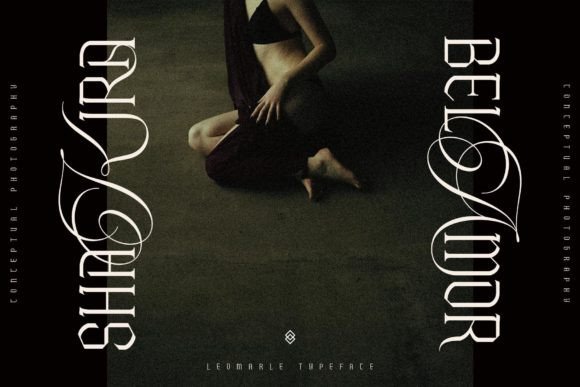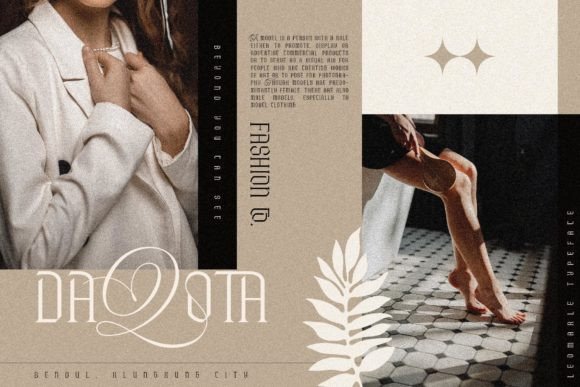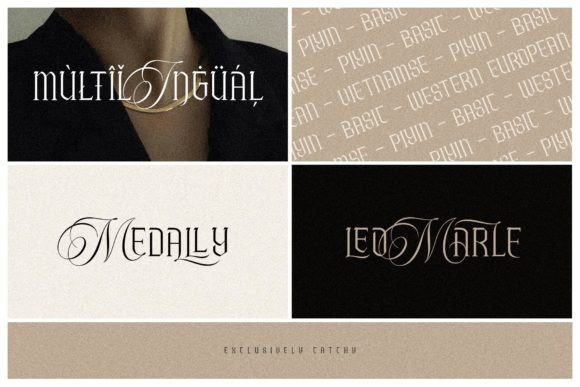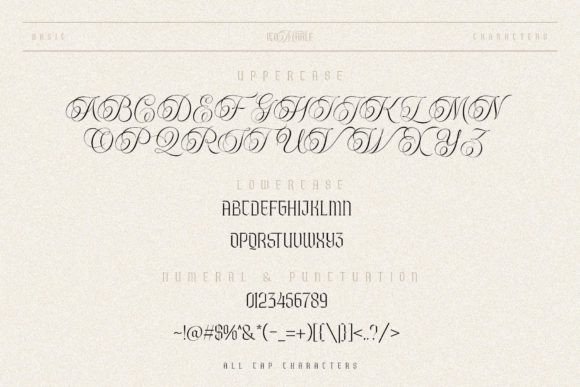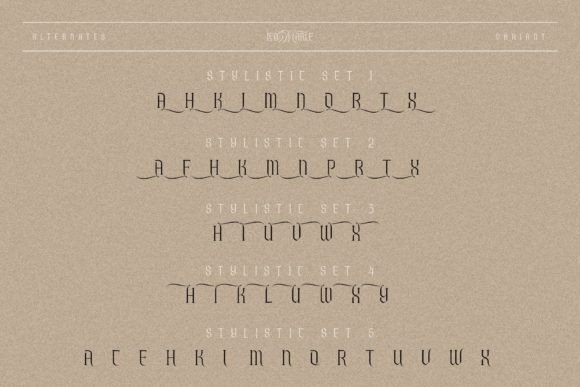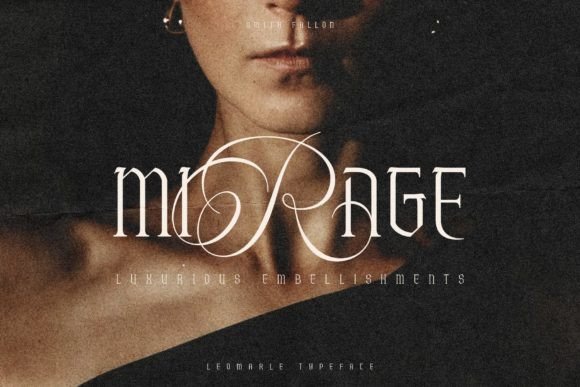
Introduction to Leomarle Font
Have you ever been scrolling through your Instagram feed, and suddenly, a beautifully designed post catches your eye? The text stands out, and you can’t help but wonder what font was used to create that stunning effect. For designers, this is the ultimate creative moment – the moment when a well-chosen font can elevate a project from ordinary to extraordinary. One such font that has been making waves in the design community is the Leomarle Font, a unique and elegant combination of scripts that is sure to take your designs to the next level.
With its classic blackletter style and modern twist, the Leomarle Font is perfect for a wide range of creative projects, from magazine cover designs to Instagram ads. And the best part? It’s incredibly easy to use, thanks to its support for Unicode (PUA) glyphs, making it a valuable resource for both designers and non-designers alike.
Key Features of Leomarle Font
- Unique, hand-drawn style with a transparent background, offering flexibility in design applications.
- Supports multiple languages, making it a versatile design resource for international projects.
- Available in a range of sizes, from 12 to 72 points, to accommodate various design needs.
- Features a high-resolution design (300 DPI) for crisp and clear typography in print and digital applications.
Honest Review: Leomarle Font
One of the standout features of the Leomarle Font is its high-quality design. The font is sleek, modern, and perfect for any project that requires a touch of sophistication. The transparent background option also makes it incredibly versatile, allowing me to use it in a variety of different contexts.
- Transparent background option adds to its versatility
- Some users may find the font to be a bit too modern for certain projects
- The font’s thin lines can sometimes make it difficult to read at smaller sizes
Overall, I’m really impressed with the Leomarle Font. It’s a fantastic design resource that’s sure to elevate any creative project. With its high-quality design and transparent background option, it’s a must-have for any designer looking to take their work to the next level.
Tips for Getting the Most Out of Leomarle Font
Use the Leomarle Font in conjunction with a transparent background to create visually appealing designs. Experiment with different font sizes and styles to add depth and interest to your creative project.
The Leomarle Font is ideal for designing logos, business cards, and other high-quality design materials that require a unique and eye-catching font style. Its high-quality design makes it a great addition to any design resource.